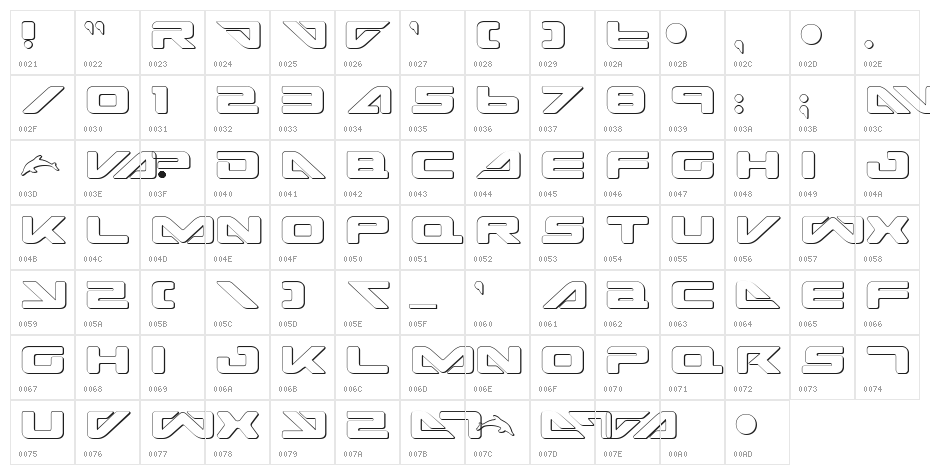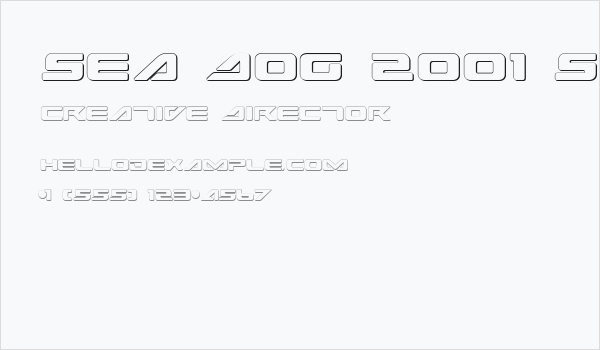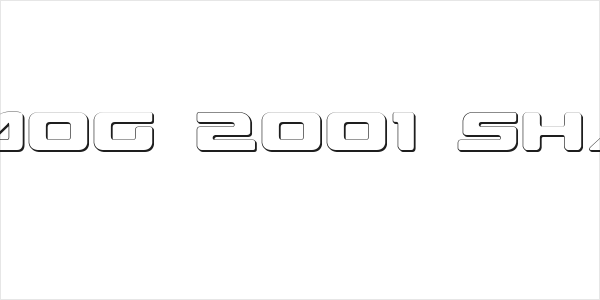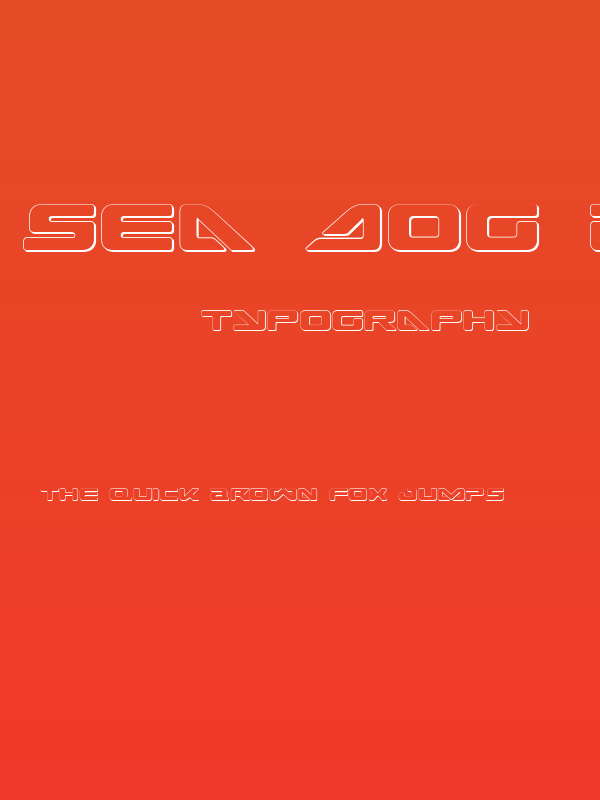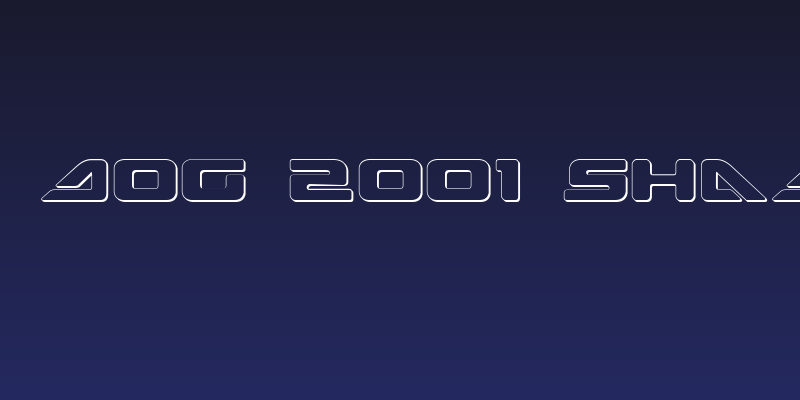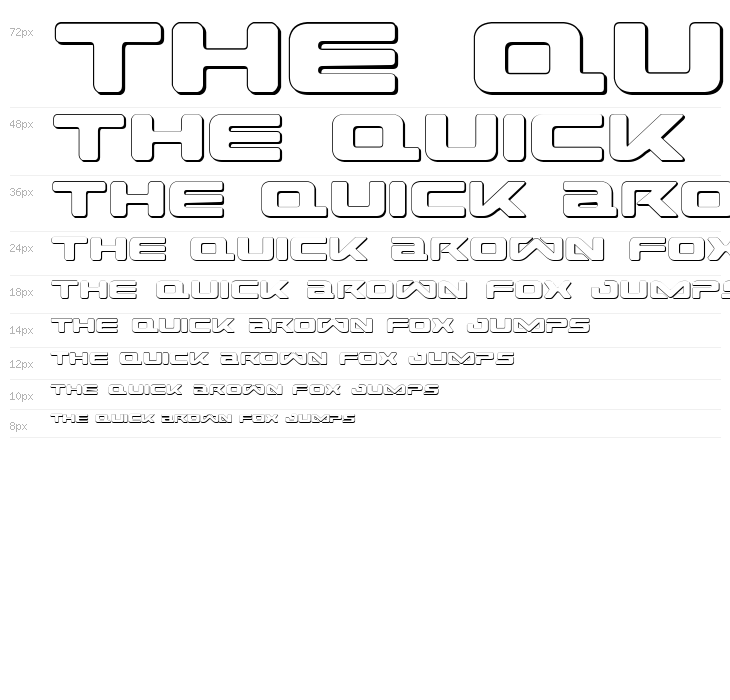
Sea Dog 2001 Shadow Font
Sea Dog 2001 Shadow Description
This font features a futuristic and geometric design with a distinct shadow effect that gives it a three-dimensional appearance. The characters are constructed with clean lines and sharp angles, creating a modern and sleek look. The uppercase and lowercase letters maintain a consistent style, with the lowercase mirroring the uppercase in form. Numbers and special characters follow the same design principles, ensuring uniformity across all glyphs. The font's unique style makes it stand out, ideal for projects that require a bold and contemporary aesthetic.
| Proposed Projects | Ideal for sci-fi themed projects, technology branding, video game titles, and modern posters. |